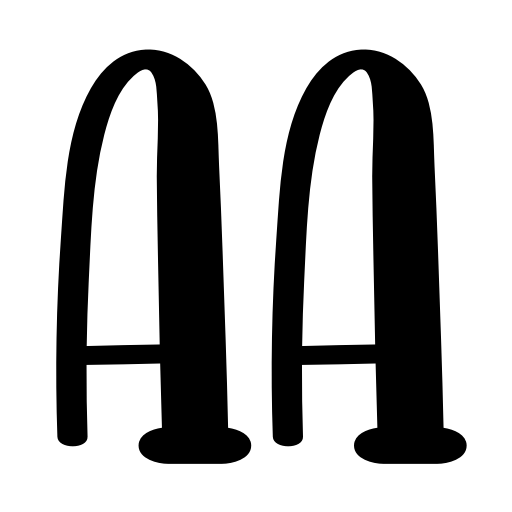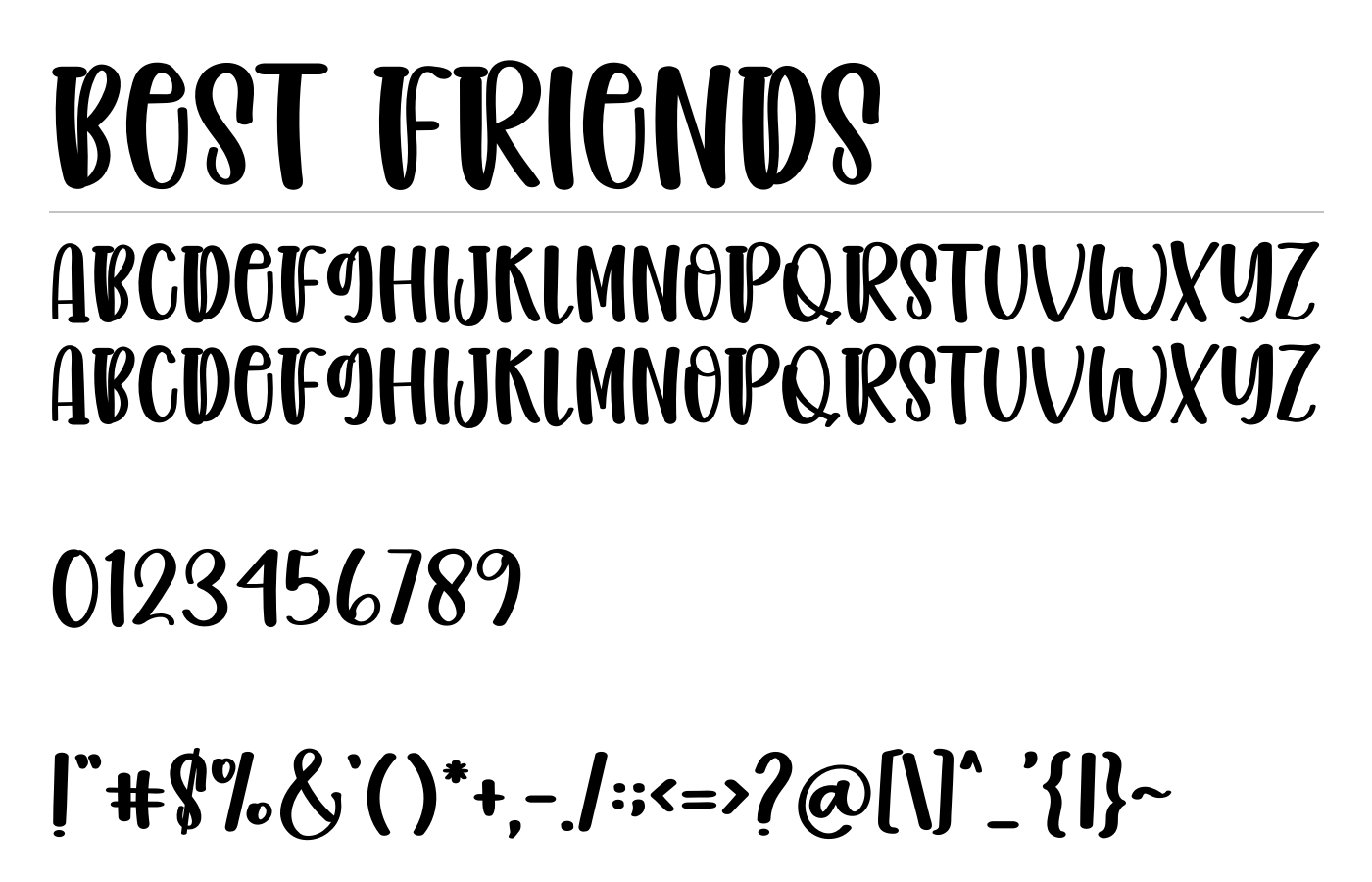
Best Friends Font is a playful and friendly handwritten typeface with a casual, rounded style that brings warmth and charm. It features tall, narrow letterforms with a lively rhythm and smooth curves, making it perfect for cheerful branding, invitations, or any design seeking a personal, approachable feel. This font works especially well in headlines and creative projects that benefit from a fun, informal touch.
Best Friends Font
About Best Friends Font